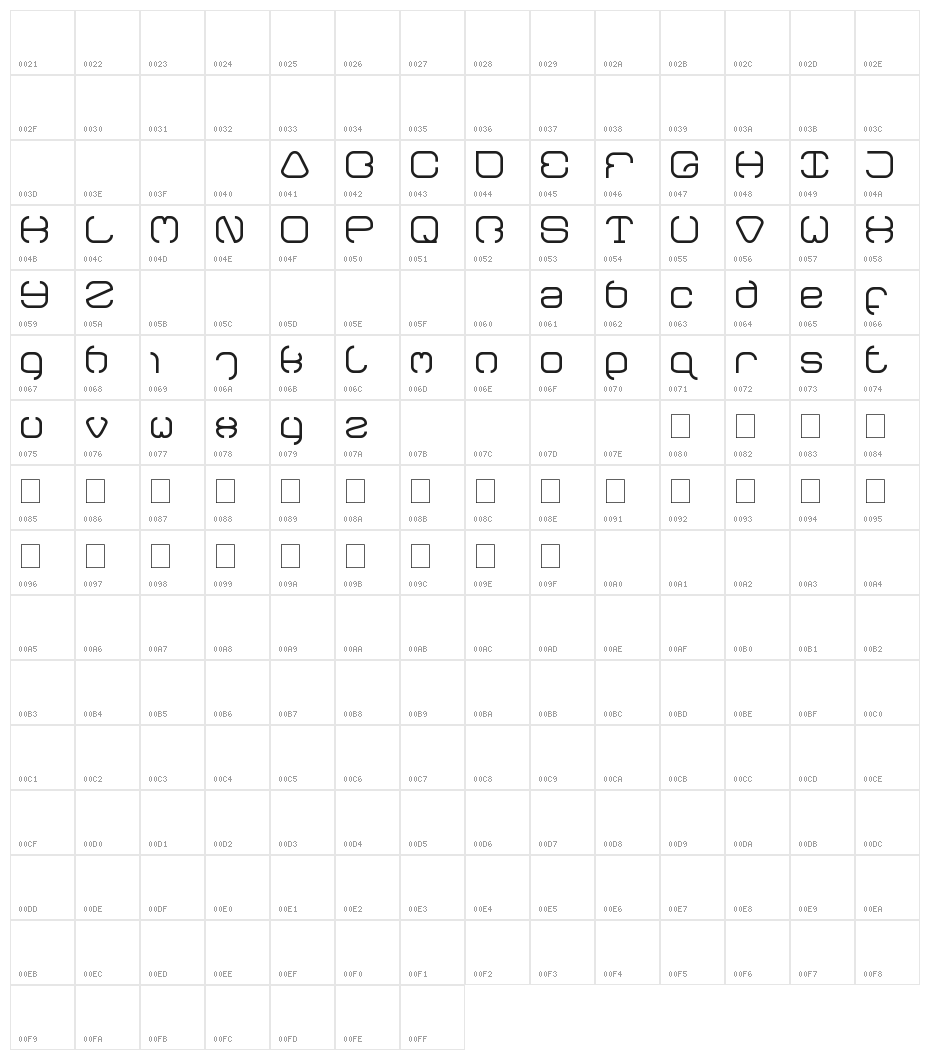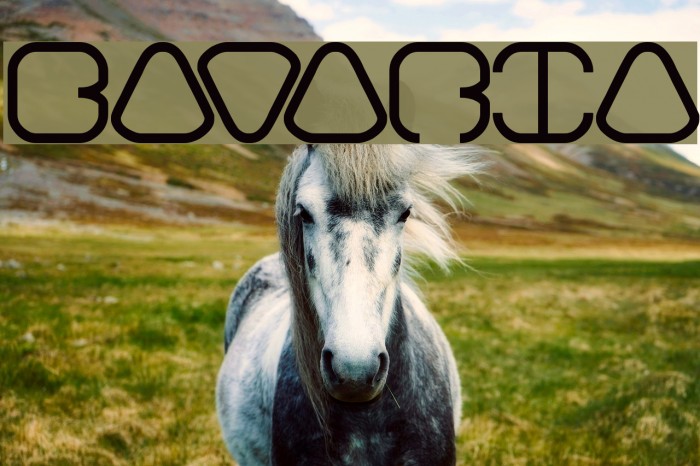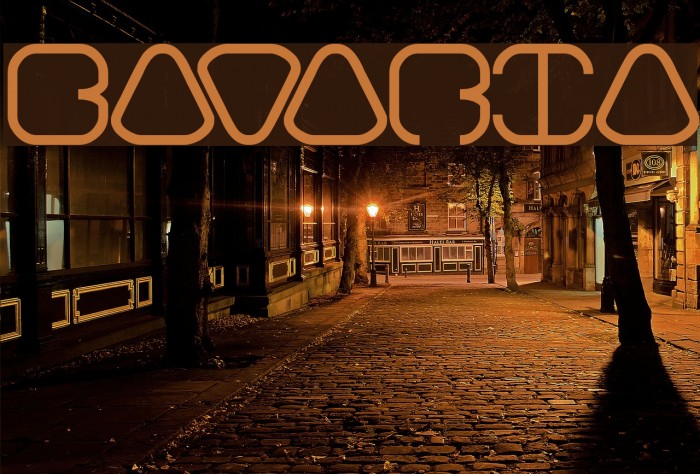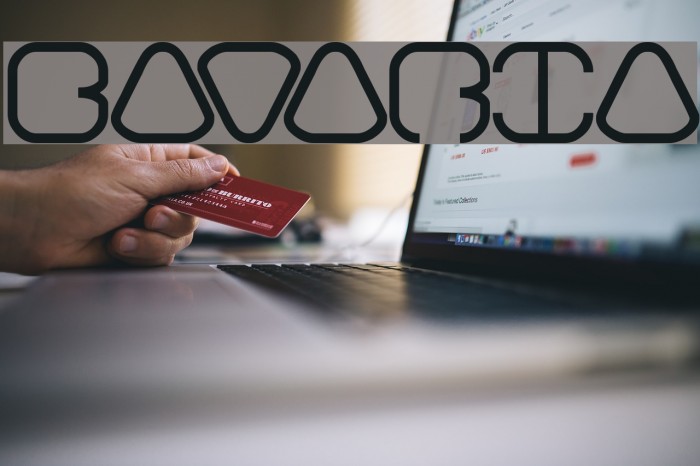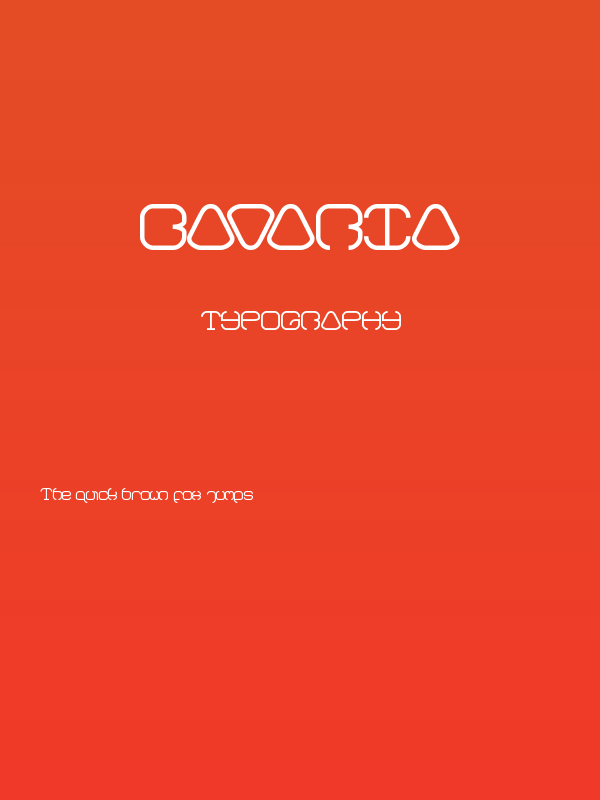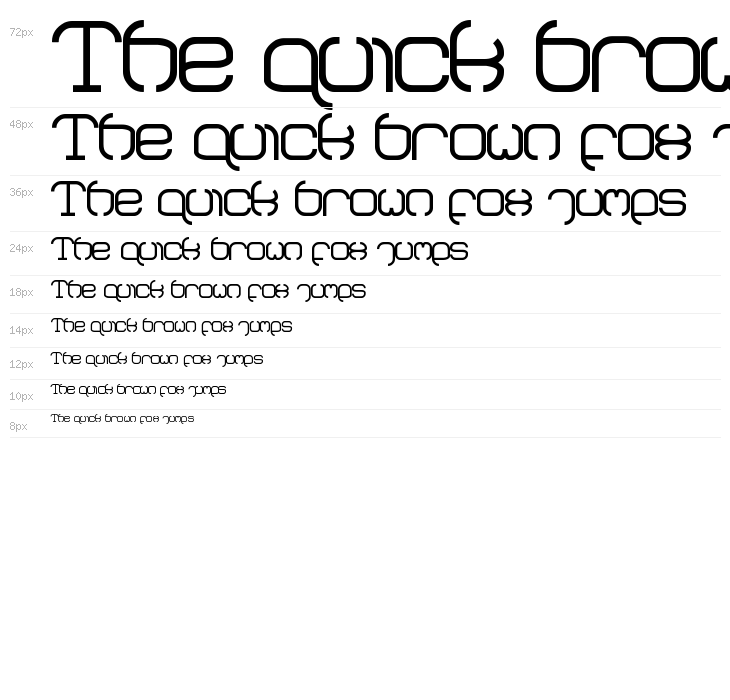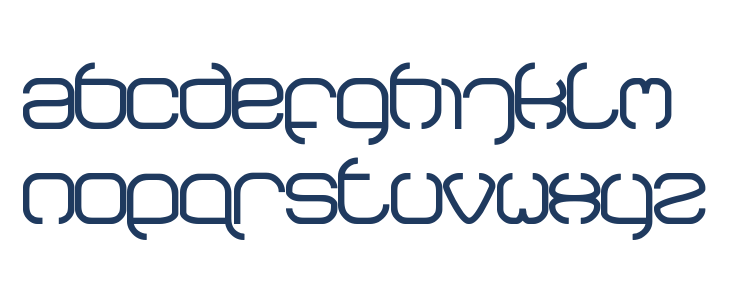
BAVARIA Font
BAVARIA Description
This font features a futuristic and geometric design, characterized by its rounded edges and unique cutouts within each character. The letters are constructed with a consistent stroke width, giving it a uniform appearance. The uppercase and lowercase letters share similar design elements, creating a cohesive look. The font's style is both modern and minimalistic, making it suitable for contemporary design projects. Its distinctive appearance is eye-catching, making it ideal for branding and logo design. The characters are evenly spaced, ensuring readability while maintaining its stylistic flair.
| Proposed Projects | Ideal for branding, logo design, tech-related projects, and modern advertising. |